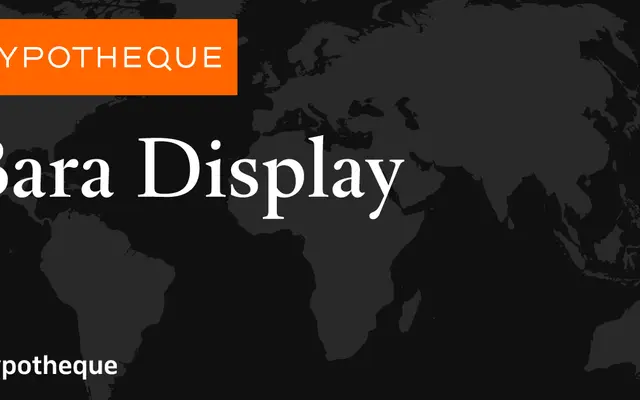
Bara Display
The display cut of Typotheque's Bara system, offered in four weights with italics alongside text and grande optical sizes.
Bara Display is the large-size member of the Bara type system from Typotheque, sitting alongside Bara and Bara Grande as optical size variants. Four weights from Light to Bold each carry a matching italic, and a variable font version is also available. The system covers Latin script and is suited to editorial and branding work where a refined, size-specific serif is needed.
Bara Display is a serif typeface positioned as the display cut within the broader Bara system, designed for use at larger sizes with refined stroke contrast suited to headlines and editorial work.